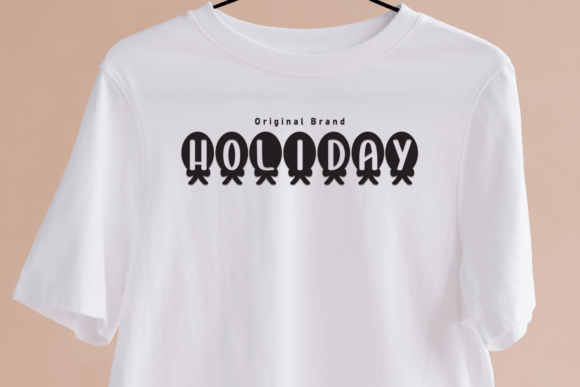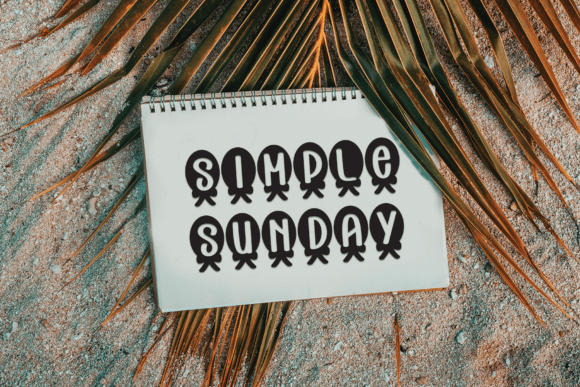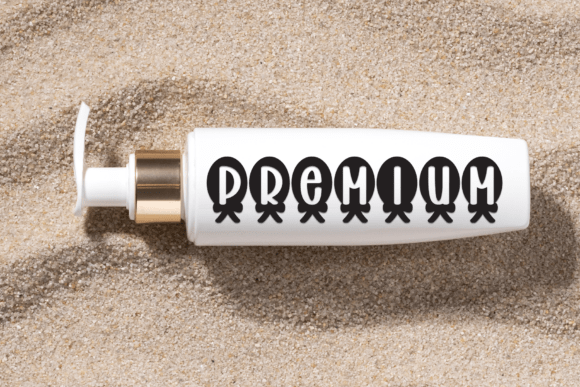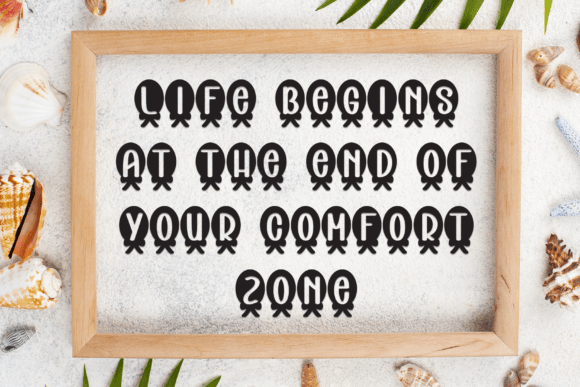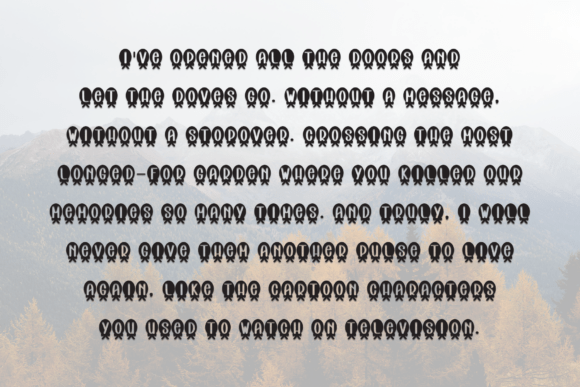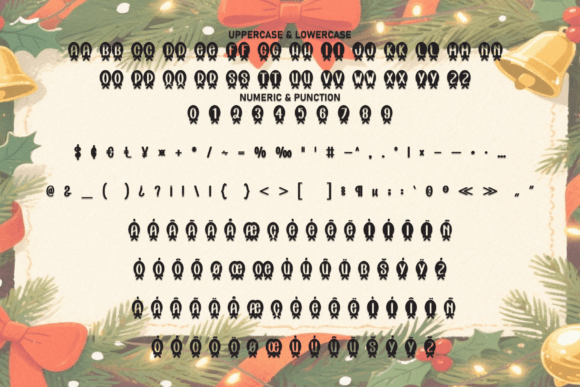
Introduction to Christmas Ribbon Font Font
Fonts play a crucial role in design, and the Christmas Ribbon Font font is a typeface that brings both character and versatility to any project. Whether you’re working on a branding project, a website, or a print design, the Christmas Ribbon Font font offers a unique style that can elevate your work.
Unveiling a distinctively imaginative, masterfully handcrafted display font, radiating a heartwarming and inviting aura.
This font brims with unparalleled personality, effortlessly infusing matrimony invitations and stationery with a captivating sprinkle of allure Itβs the perfect choice for artistic pursuits that require a dab of fantasy β a true embodiment of joviality and enchantment, perfectly encapsulating pure joy and sweetness.
Key Features of Christmas Ribbon Font Font
Why Choose Christmas Ribbon Font Font?
The Christmas Ribbon Font font is more than just a typeface β it’s a design tool that helps you communicate your message with style and clarity. Its unique character set and versatile design make it suitable for a wide range of applications, from elegant invitations to bold headlines.
With its carefully crafted letterforms and balanced proportions, the Christmas Ribbon Font font ensures readability and visual appeal across all mediums.
What makes Christmas Ribbon Font font special?
The Christmas Ribbon Font font stands out with its unique design, exceptional readability, and versatility across various design applications.